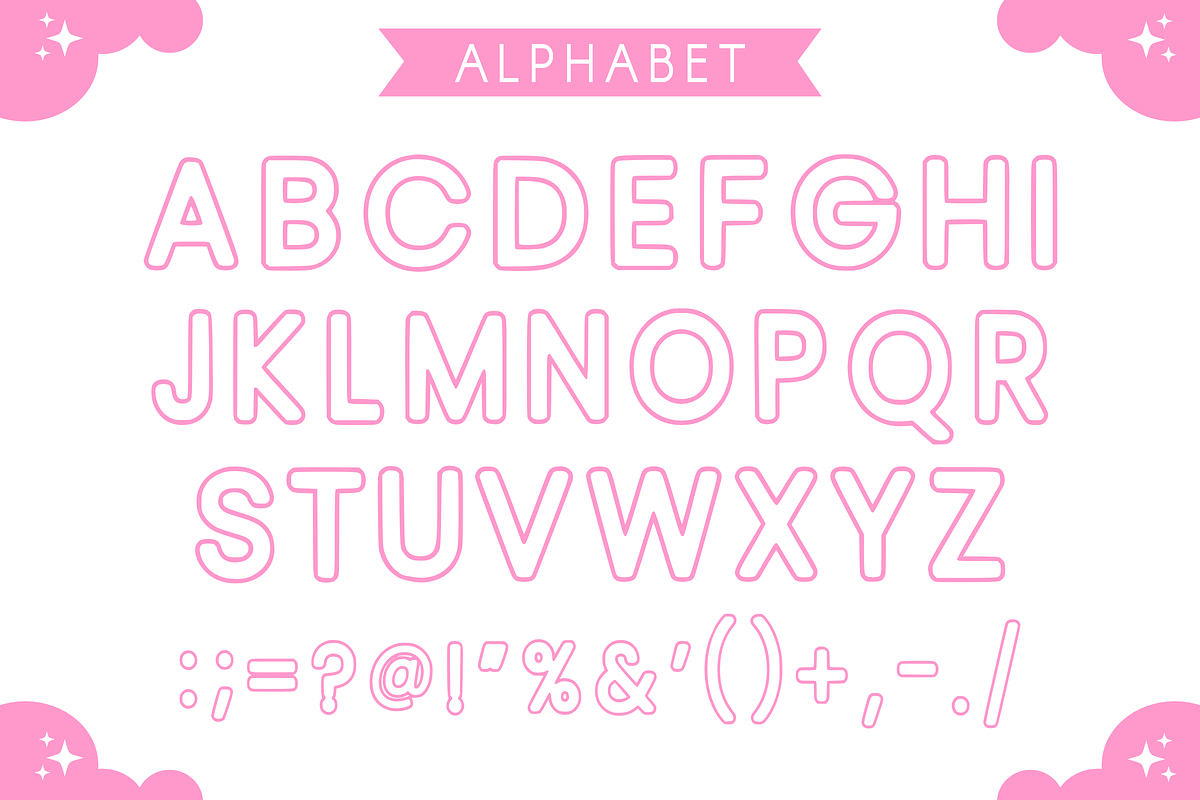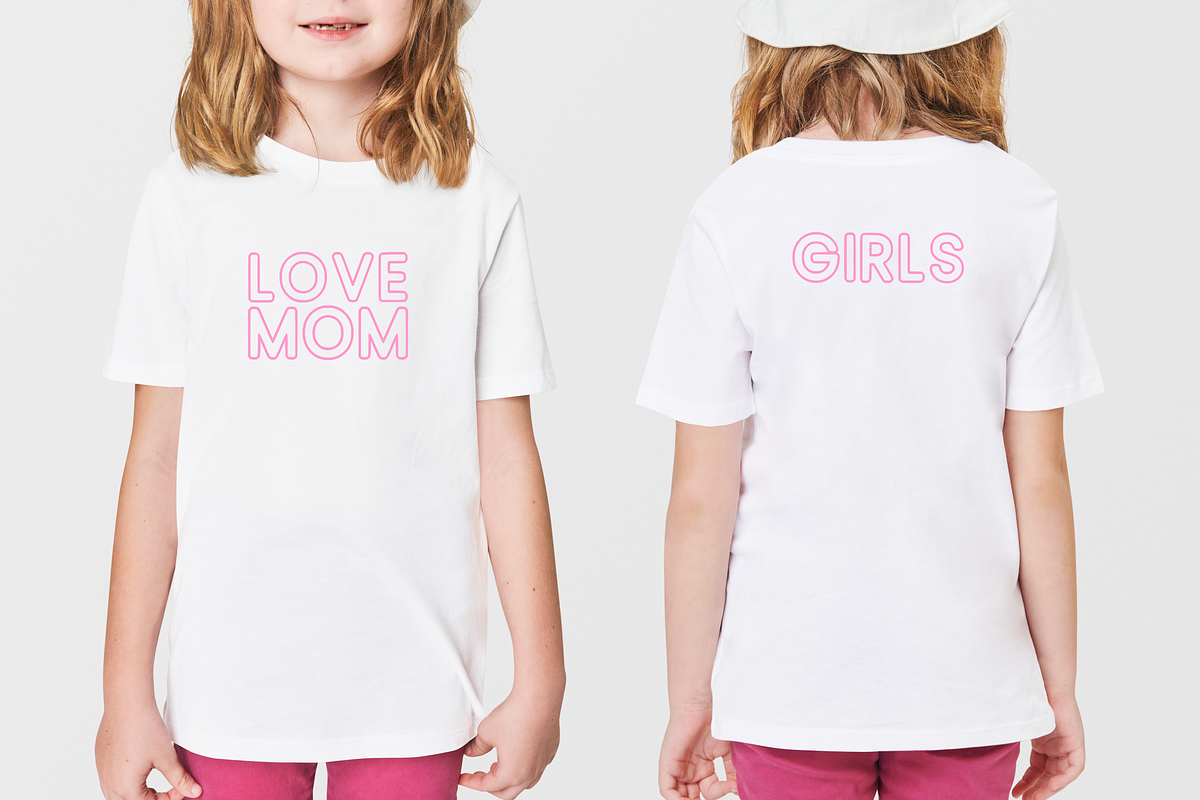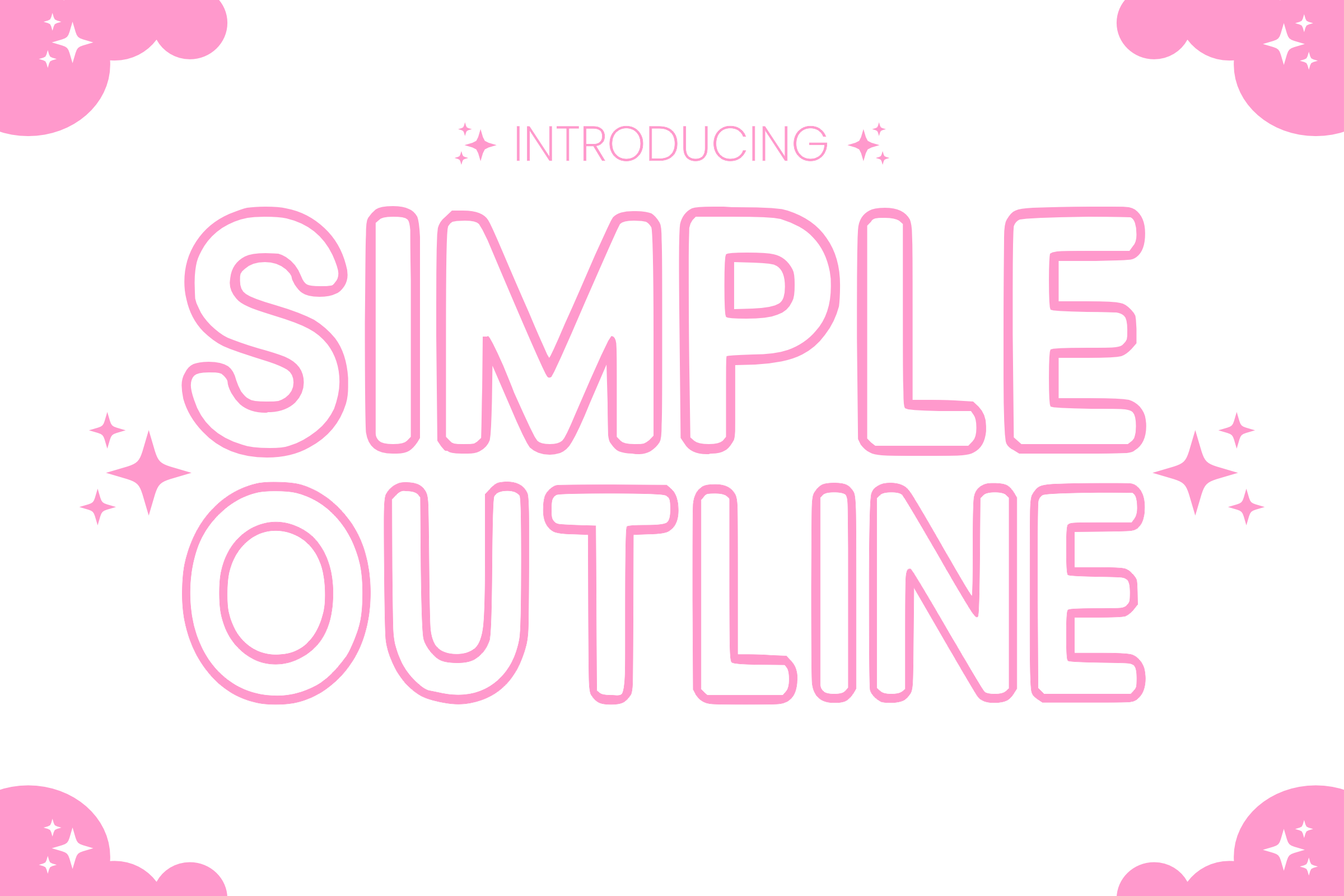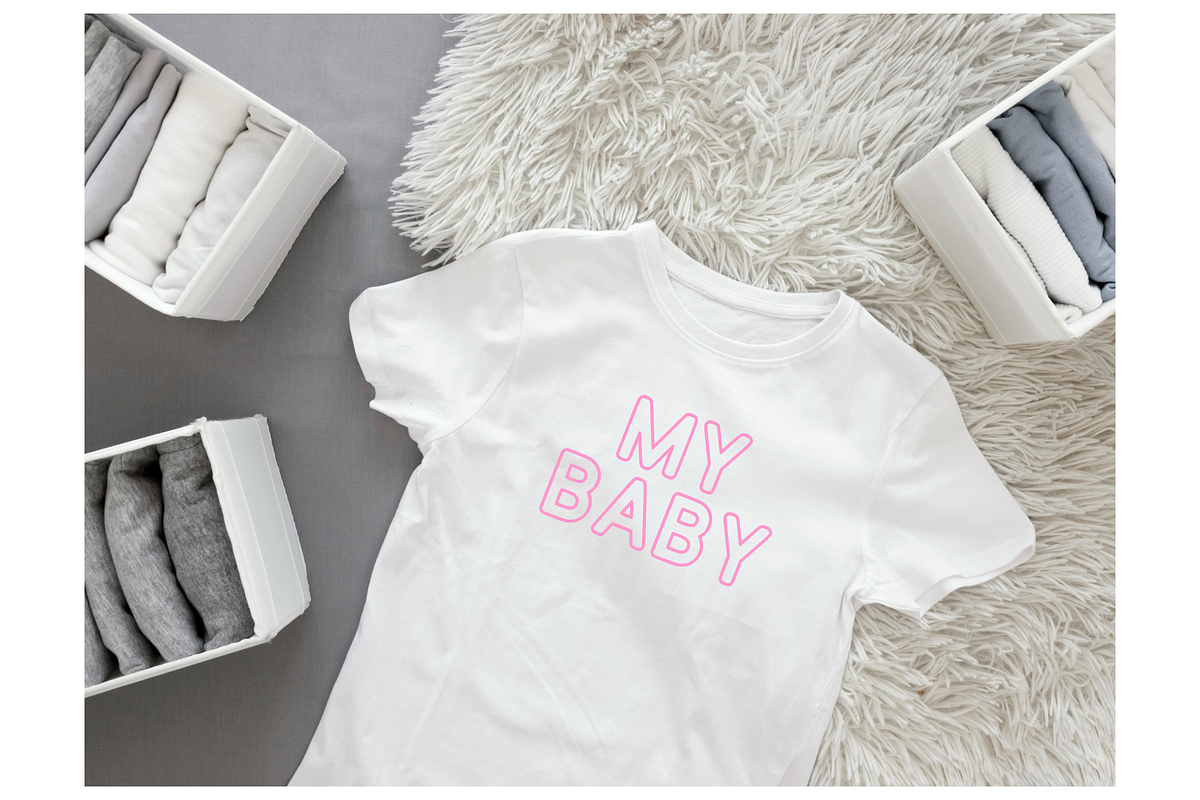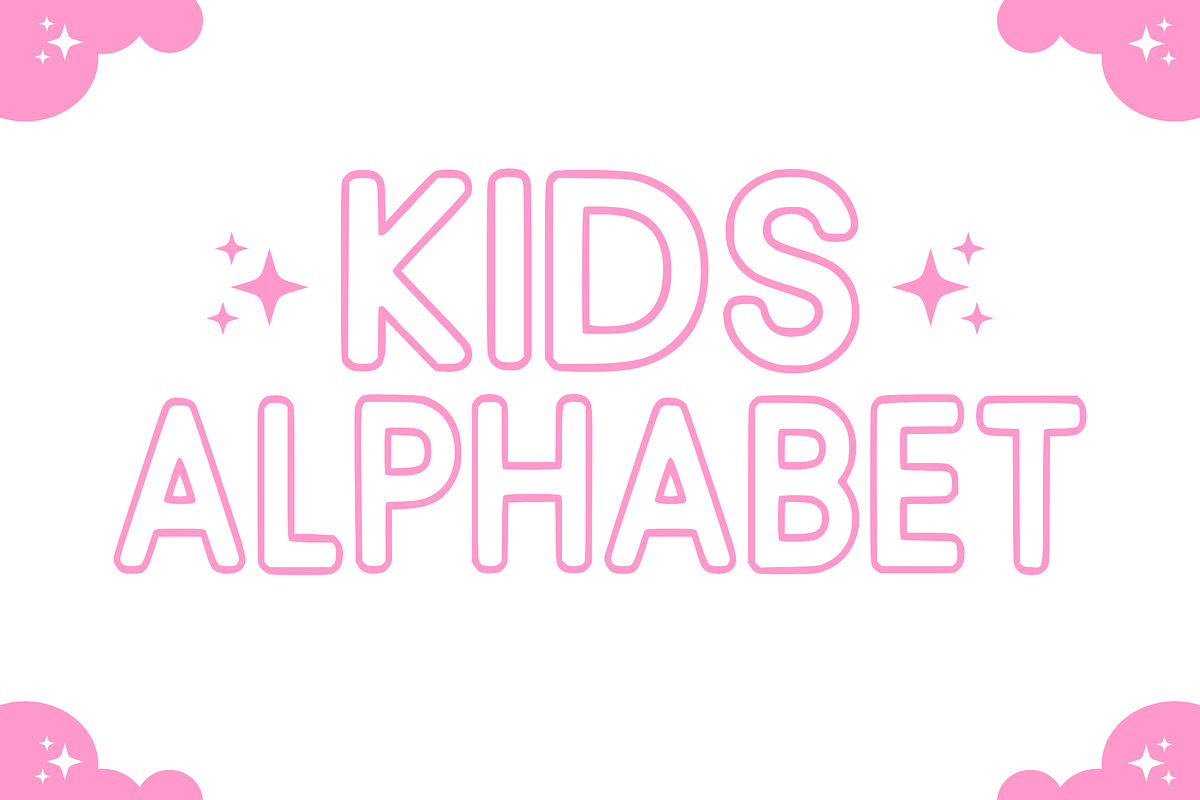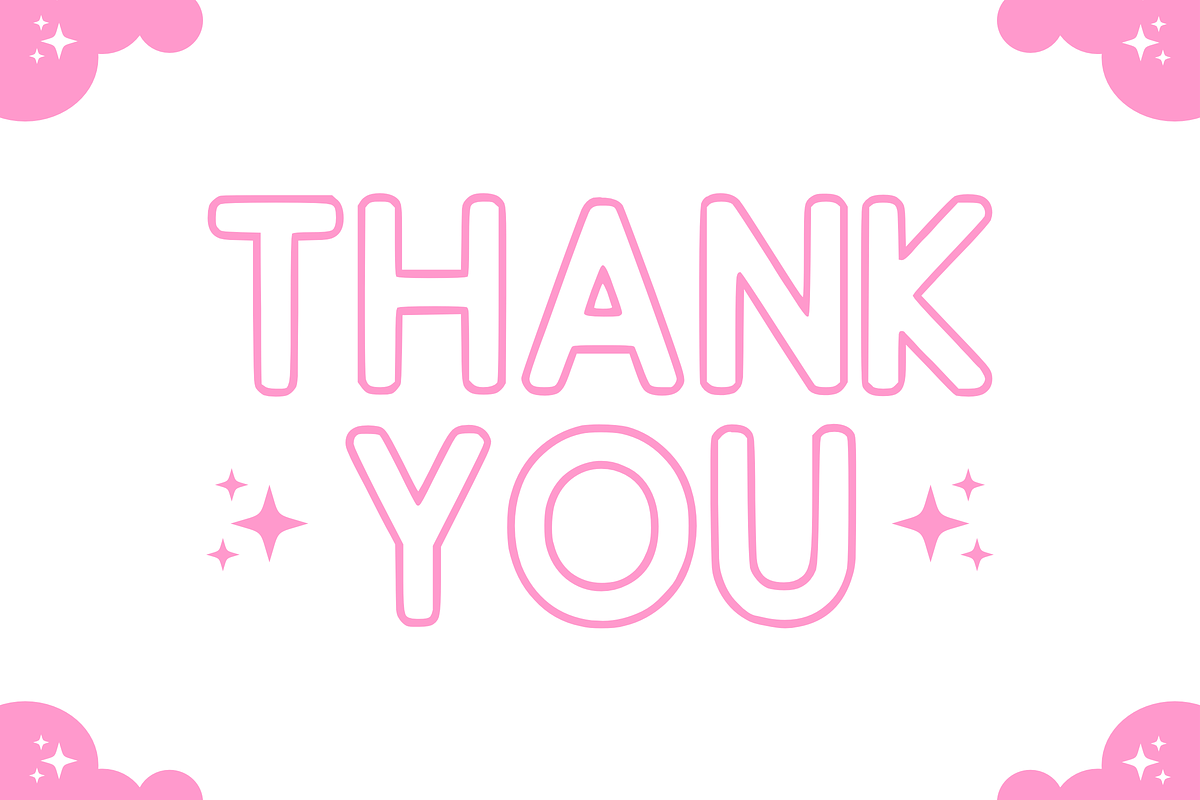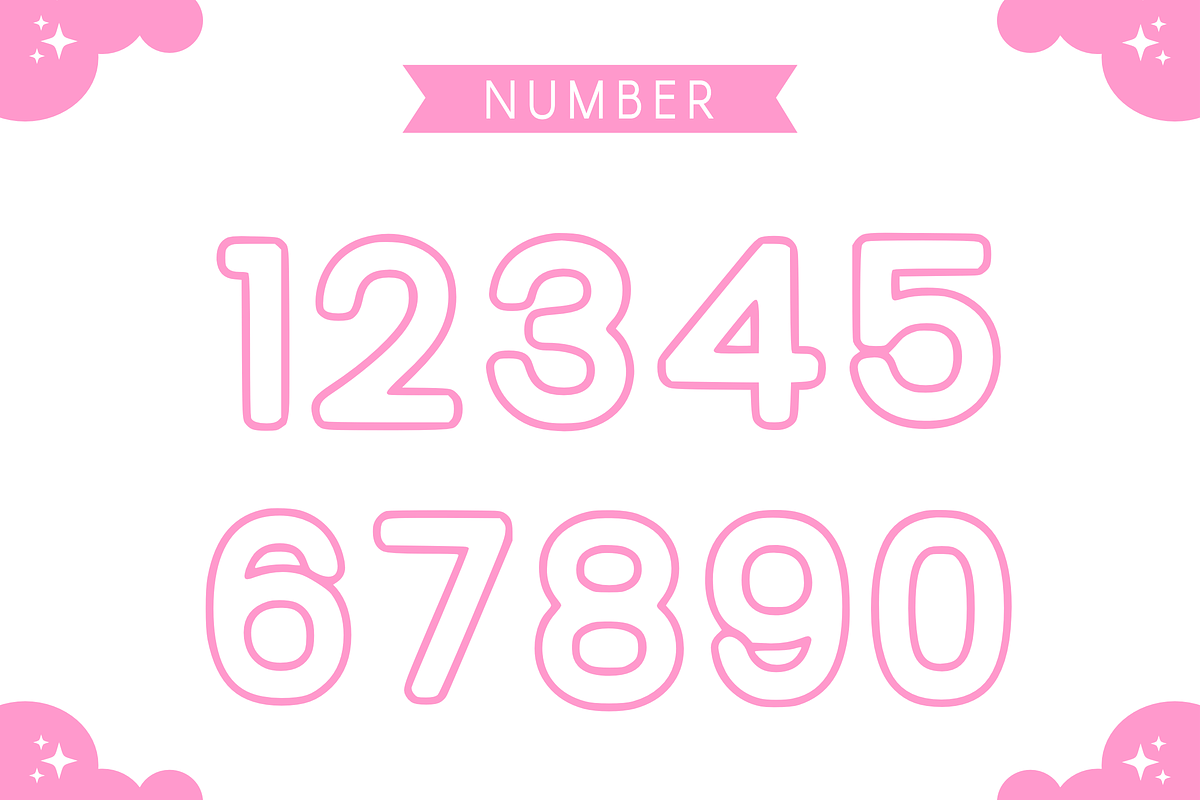
Simple Outline - Child Font Types
Presenting “SIMPLE OUTLINE”, a lovable, baby-themed sketch font that radiates pure innocence and charm with each character. Crafted with a tender touch, it perfectly encapsulates the essence of youthful delight. Ideal for transforming your greeting cards, sublimation mugs, t-shirts, and invitations into whimsical masterpieces. Embrace the magic of childhood with “SIMPLE OUTLINE” and elevate your design to a realm of heartwarming cuteness.